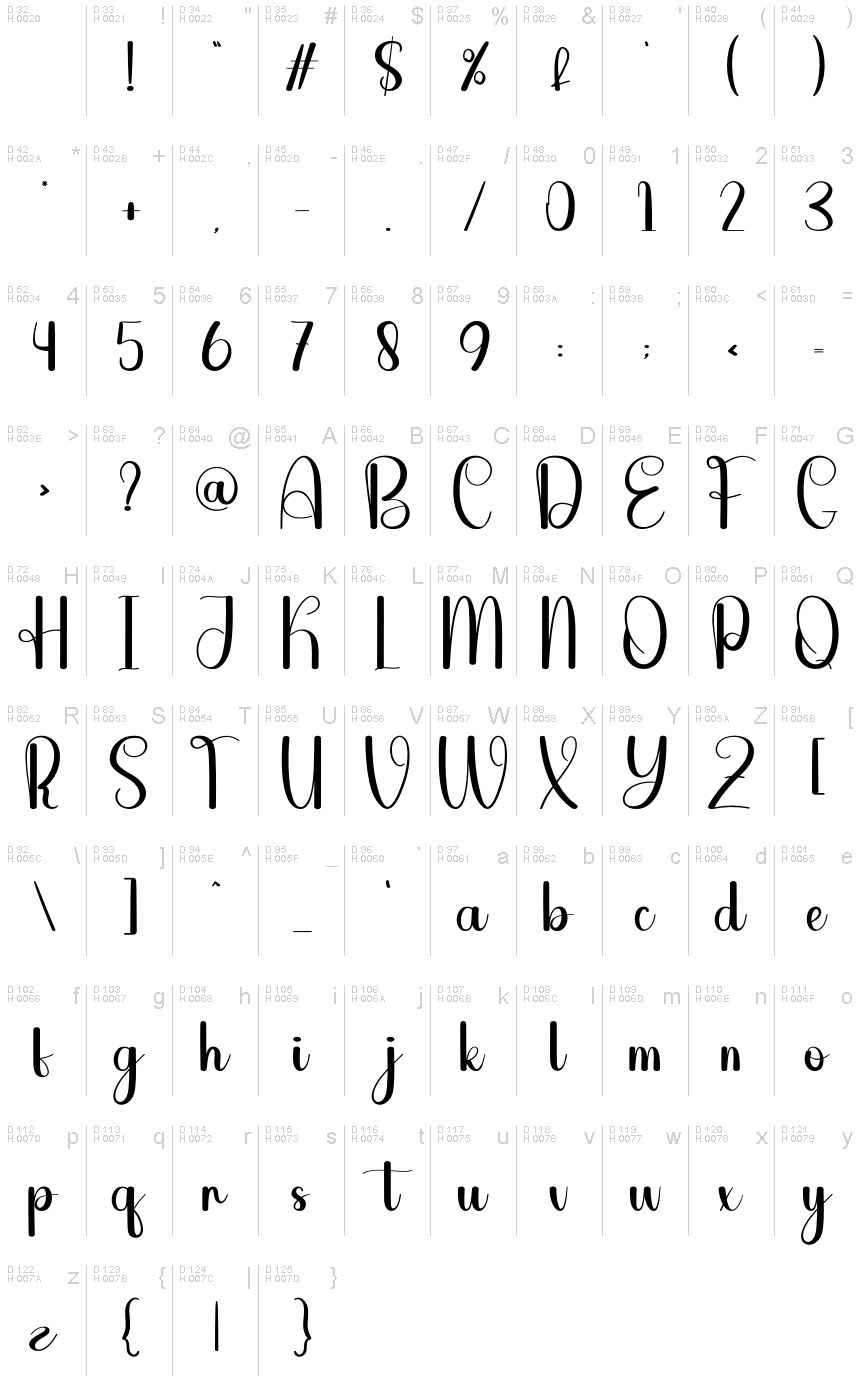
Beside
Beside, a captivating calligraphy font crafted by Inermedia Studio, effortlessly blends elegance and modernity. With its semi-bold weight, it exudes confidence and versatility. This typeface is perfect for wedding invitations, luxury branding projects, fashion magazines, and restaurant menus. Its graceful curves and fluid strokes add a touch of sophistication to any design. Beside's unique charm will captivate viewers while ensuring readability across digital platforms. Elevate your creative endeavors with Beside – a font that whispers elegance in every character.